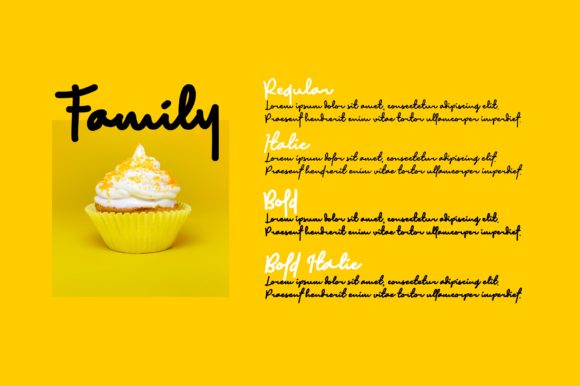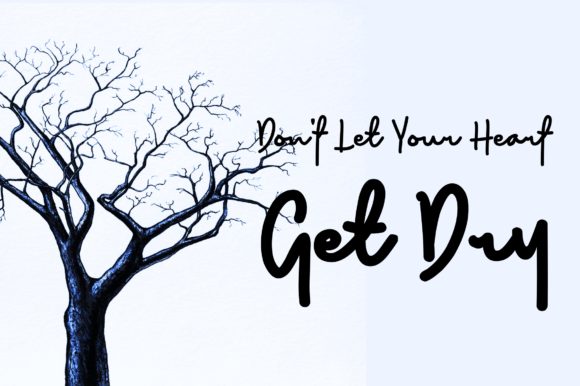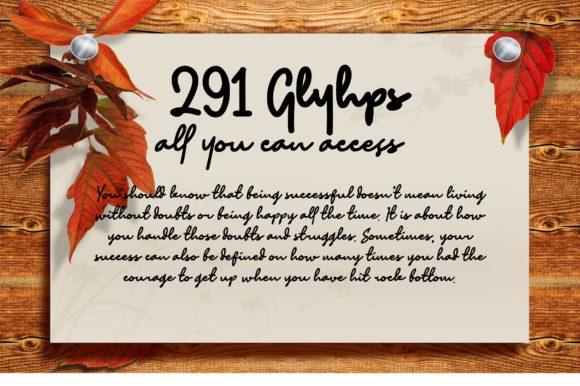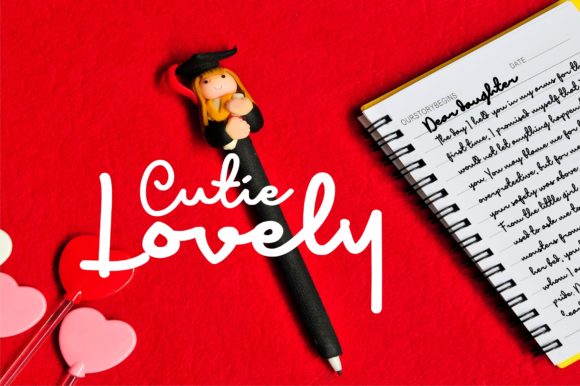
Introducing Grandix Font: The Perfect Choice for Adding a Touch of Innocence to Your Creations
Are you a designer or crafter looking for a font that can add a touch of innocence and playfulness to your creations? Look no further than Grandix Font! This cute and simple handwritten font is perfect for writing letters to Santa, creating festive holiday cards, or adding a whimsical touch to your designs.
What Makes Grandix Font So Special?
Grandix Font is a PUA (Private Use Area) encoded font, which means that you can access all of the glyphs and swashes with ease. This makes it incredibly versatile and easy to use, even for those who are new to font design. With Grandix, you can create beautiful and unique text designs that will set your work apart from the rest.
The Characteristics of Grandix Font
Grandix Font is a handwritten font that is characterized by its cute and simple design. The letters are rounded and childlike, making it perfect for creating a sense of innocence and playfulness in your designs. The font is also highly legible, making it easy to read and understand.
Uses for Grandix Font
Grandix Font is incredibly versatile and can be used for a wide range of projects, including:
- Holiday cards and invitations: Add a touch of festive cheer to your holiday cards and invitations with Grandix Font.
- Children’s projects: Grandix Font is perfect for creating materials for kids, such as worksheets, activity sheets, and coloring pages.
- Stationery and gift tags: Use Grandix Font to create beautiful and unique stationery and gift tags.
- Signs and posters: Grandix Font is perfect for creating eye-catching signs and posters for events, sales, and promotions.
Why Designers and Crafters Love Grandix Font
Designers and crafters love Grandix Font for many reasons, including:
- Its ease of use: Grandix Font is incredibly easy to use, even for those who are new to font design.
- Its versatility: Grandix Font can be used for a wide range of projects, from holiday cards to signs and posters.
- Its unique design: Grandix Font has a unique and playful design that sets it apart from other fonts.
Tips for Using Grandix Font
Here are a few tips for using Grandix Font in your designs:
- Experiment with different colors: Grandix Font looks great in a variety of colors, so don’t be afraid to experiment and find the perfect color for your design.
- Use it with other fonts: Grandix Font pairs well with other fonts, so try using it with a bold font for a fun and playful look.
- Don’t be afraid to get creative: Grandix Font is a versatile font that can be used in a wide range of projects, so don’t be afraid to get creative and try new things.
Grandix Font is a cute and simple handwritten font that is perfect for adding a touch of innocence and playfulness to your designs. With its PUA encoding and versatile design, it’s easy to use and can be used for a wide range of projects. Whether you’re a designer or crafter, Grandix Font is a great choice for anyone looking to add a touch of whimsy to their creations.